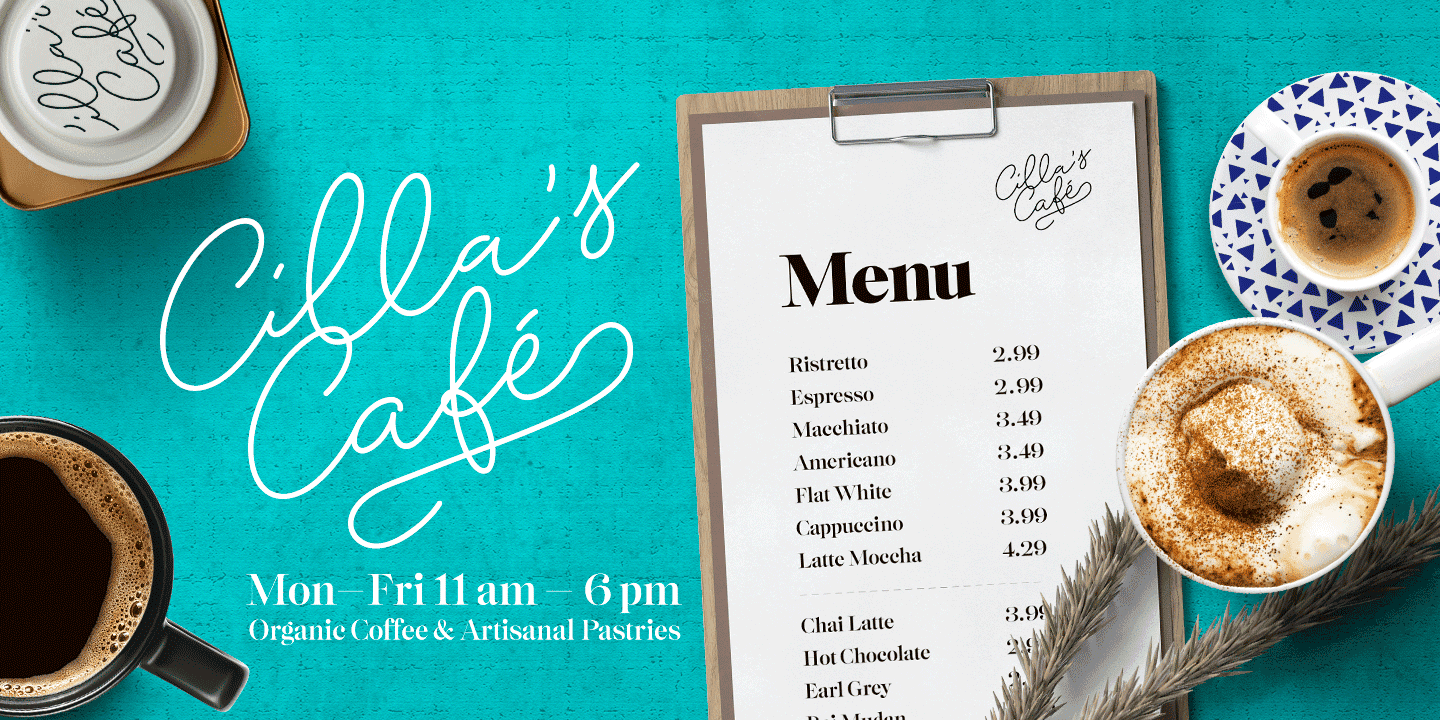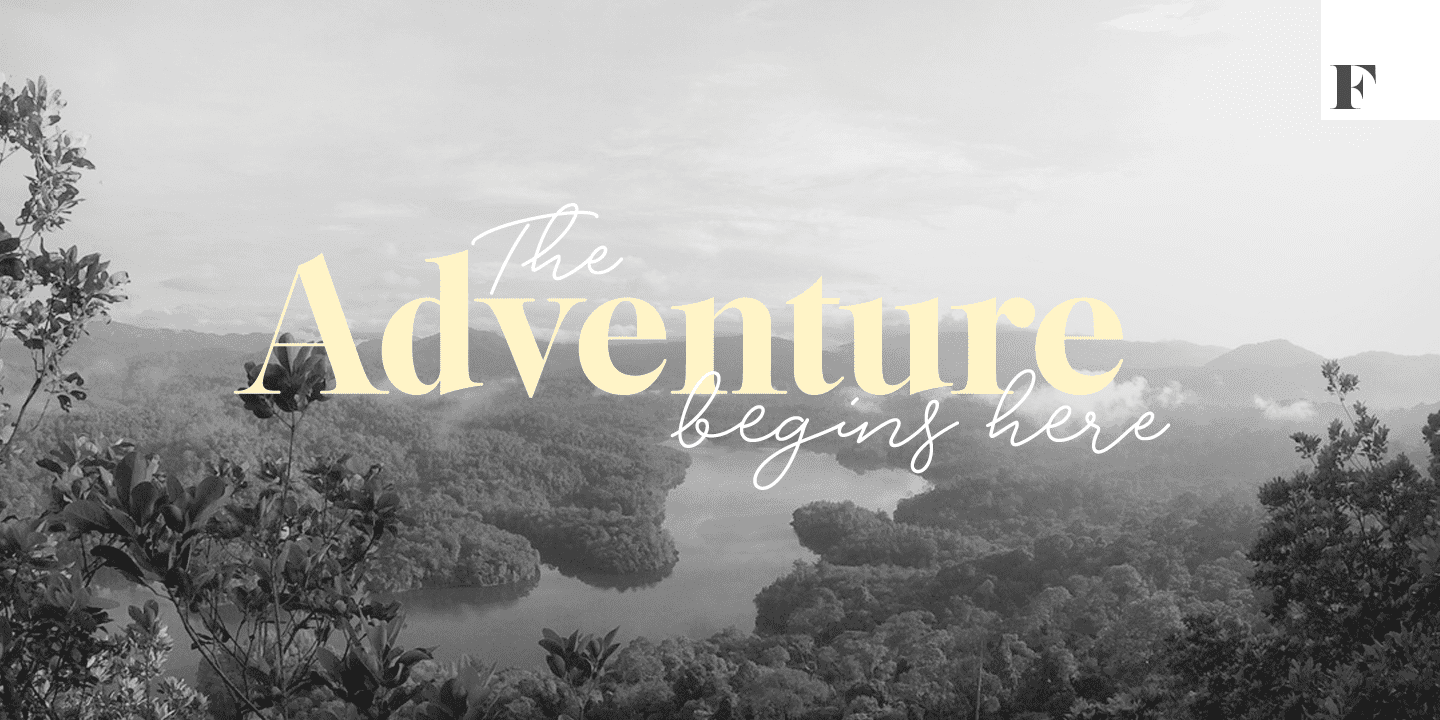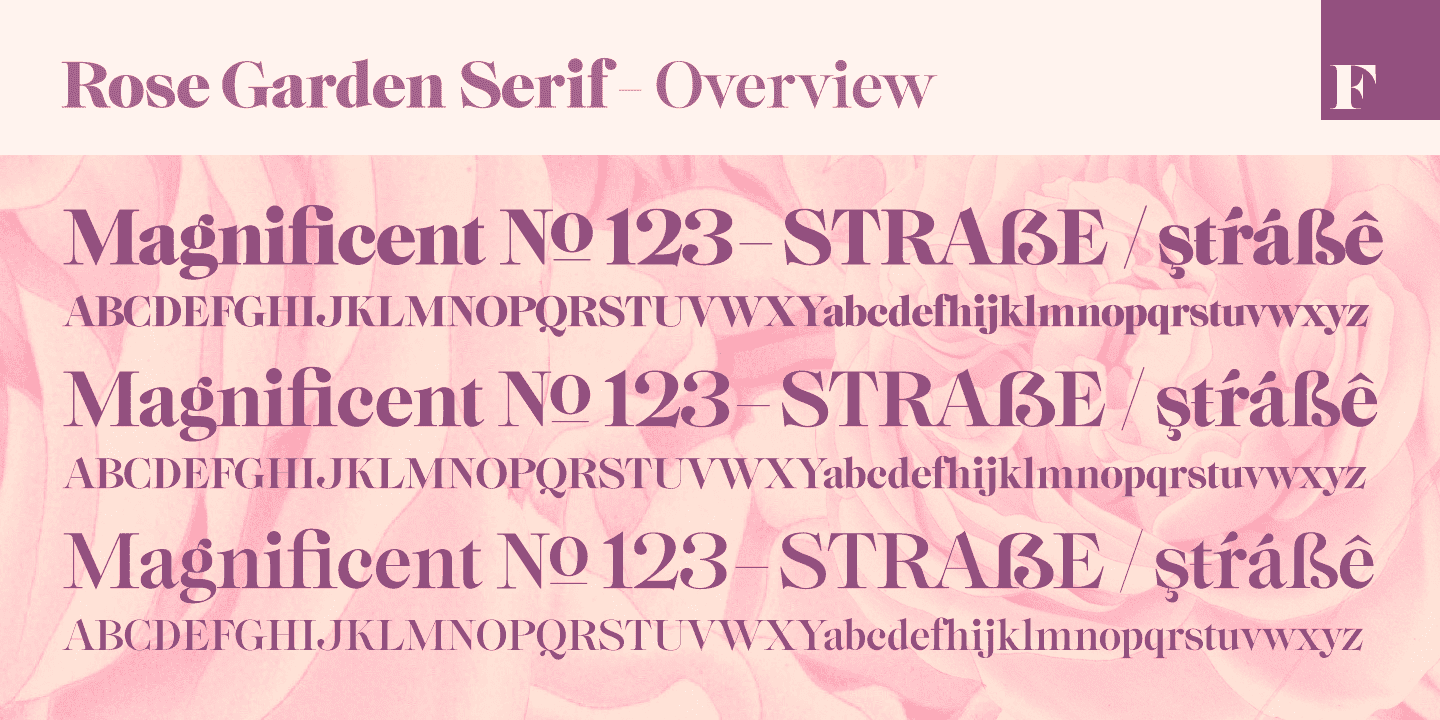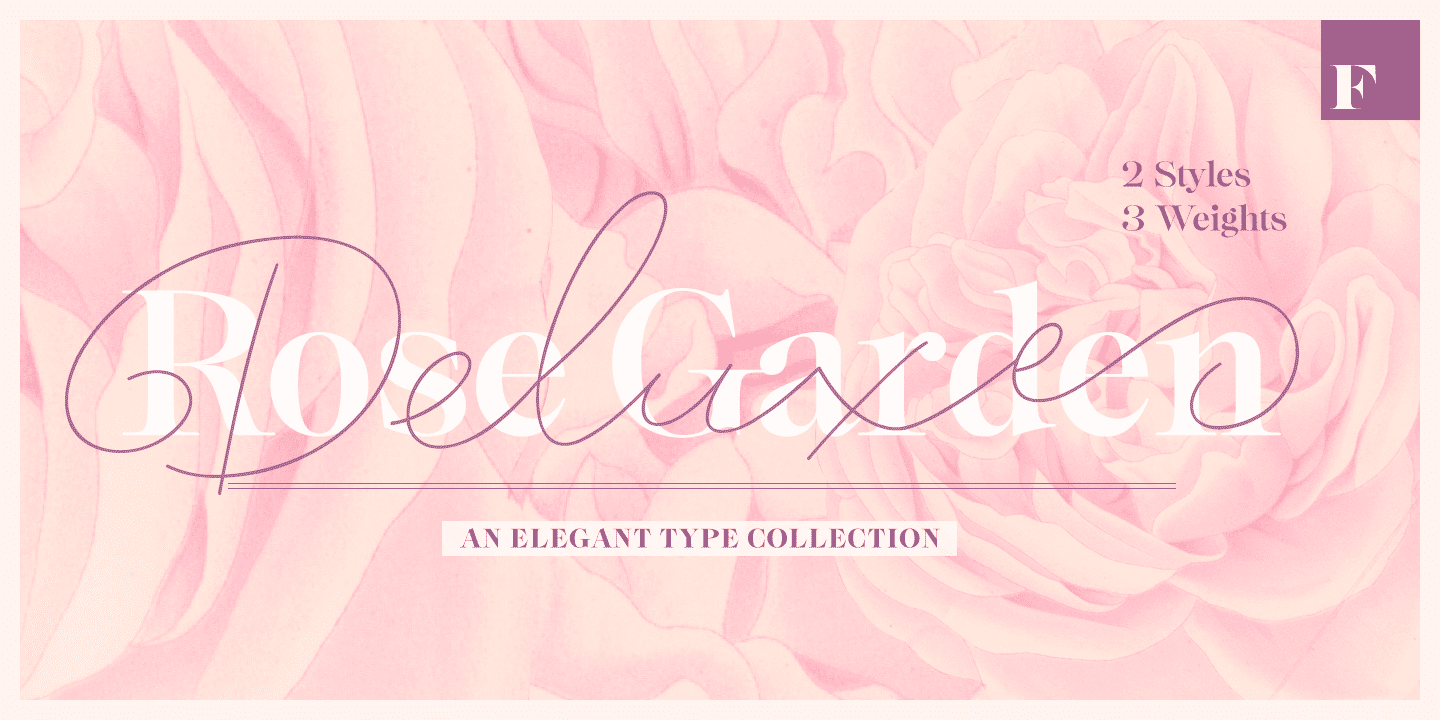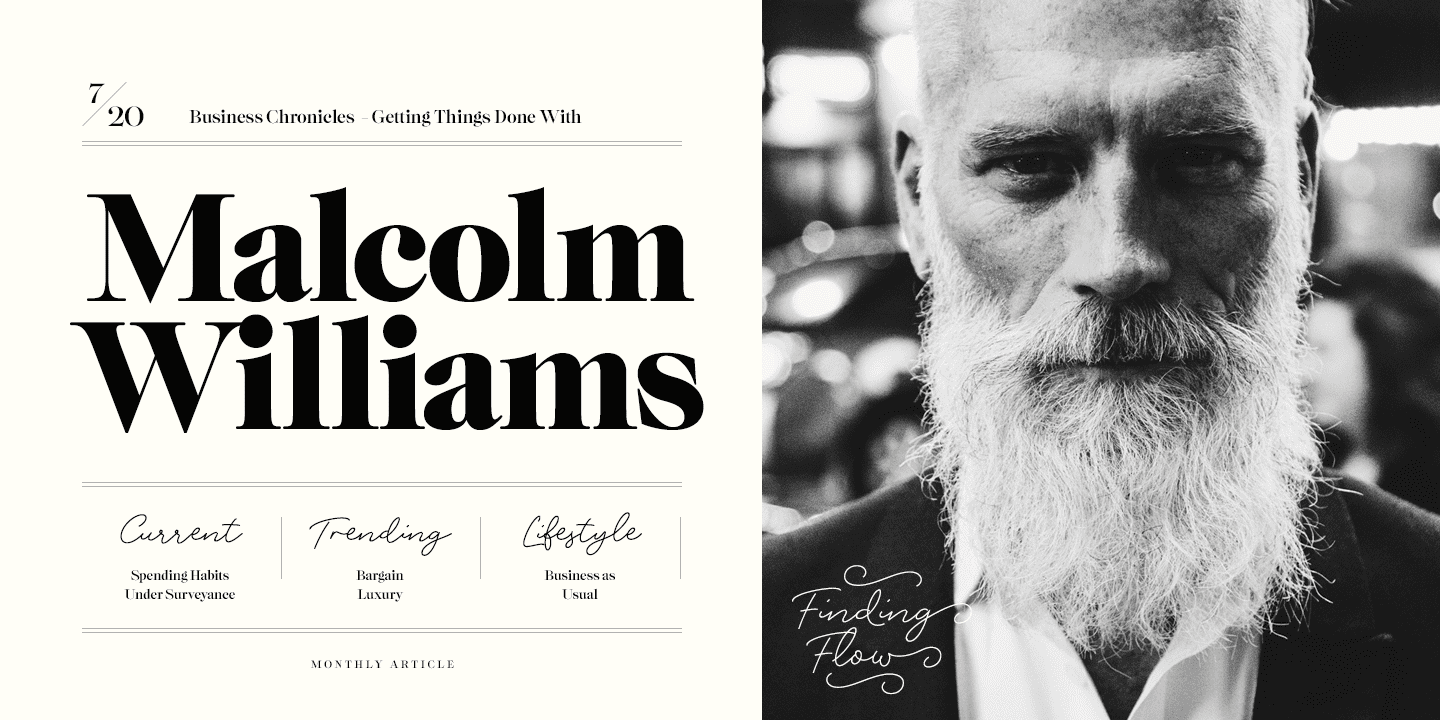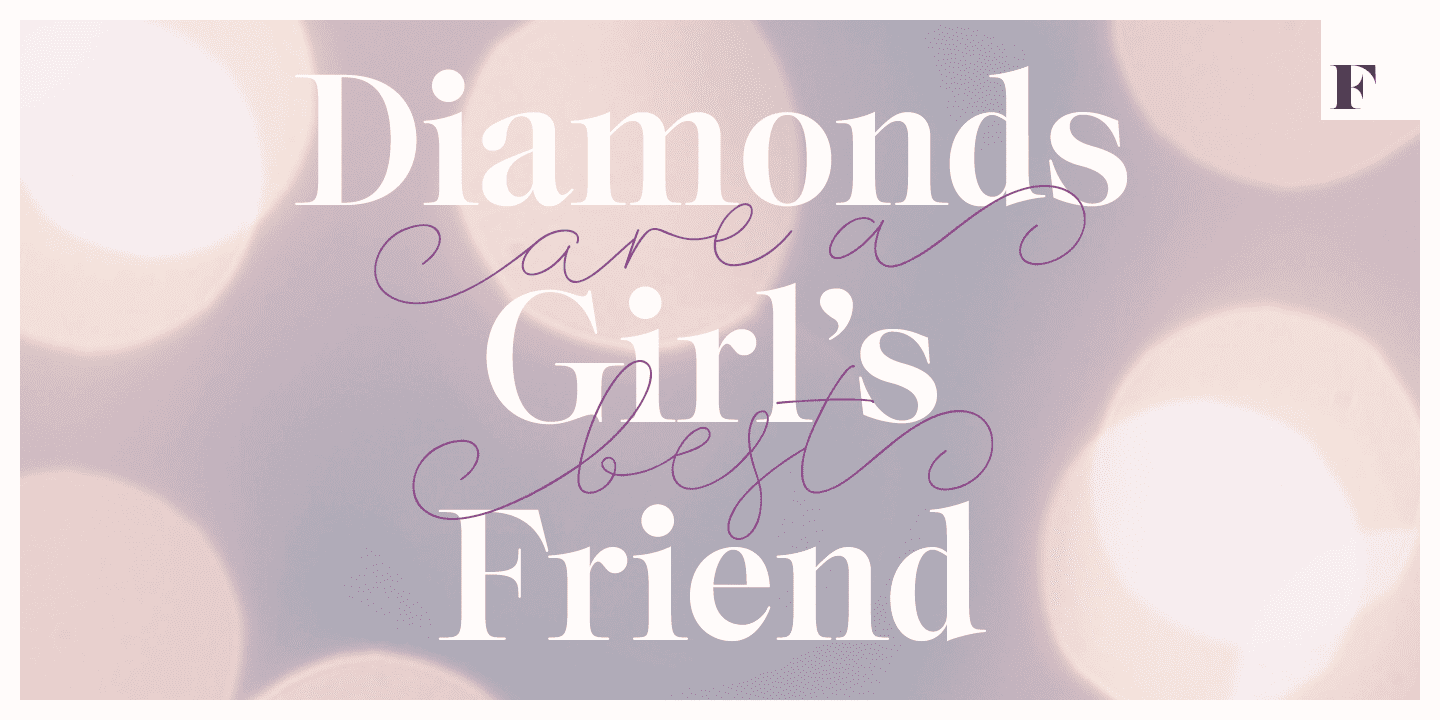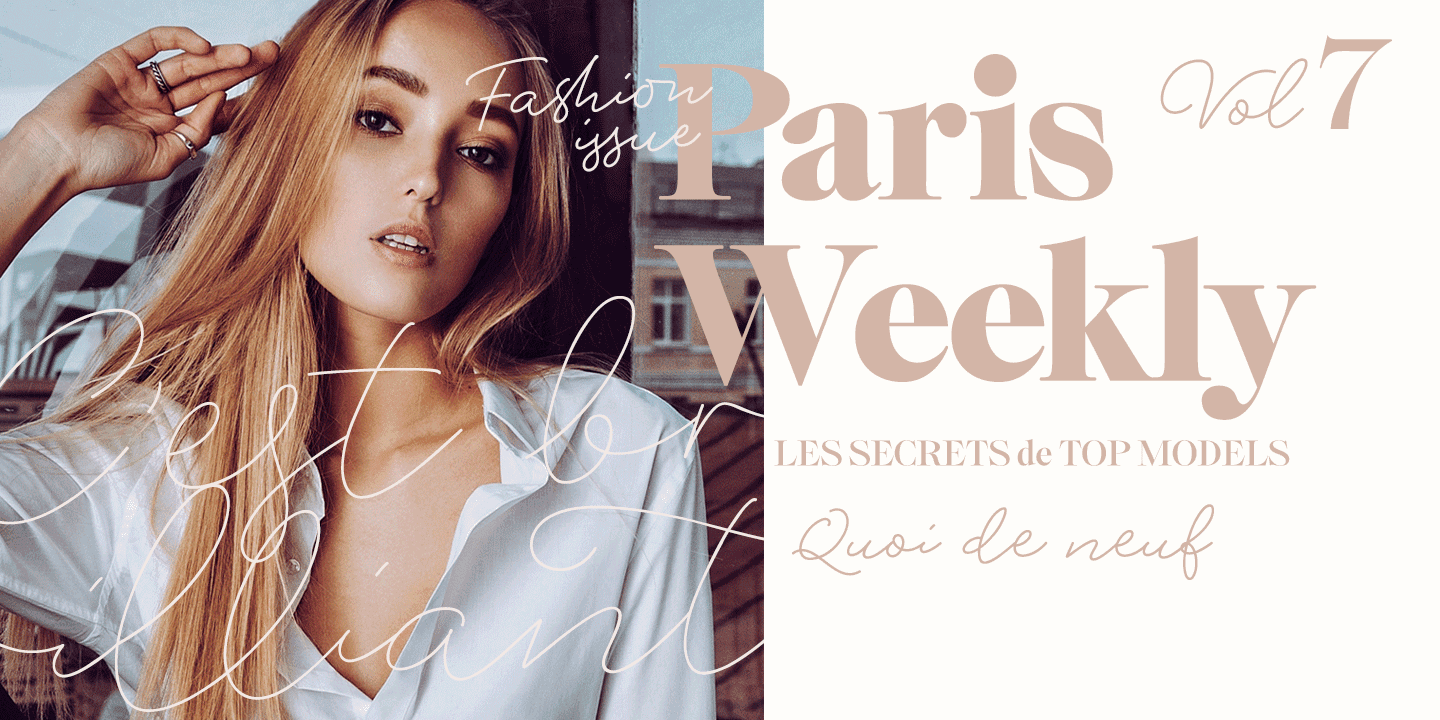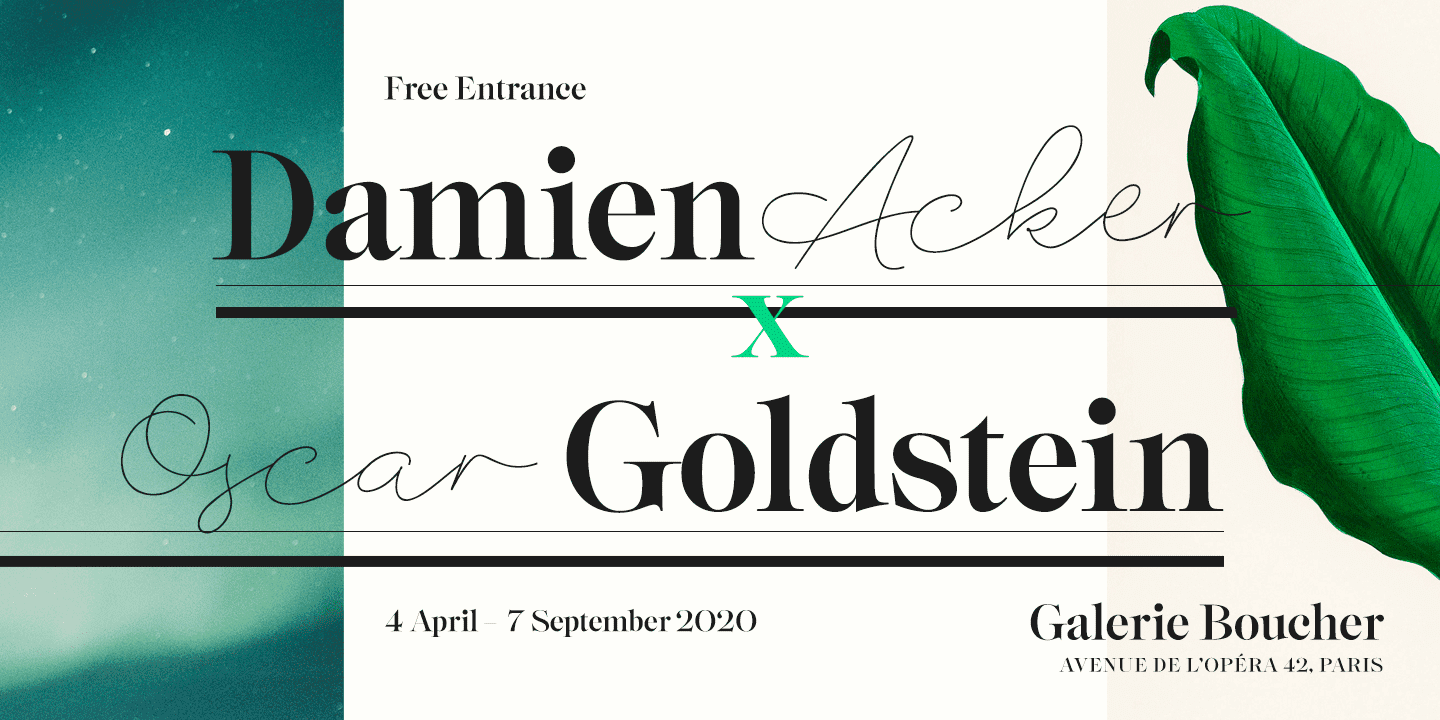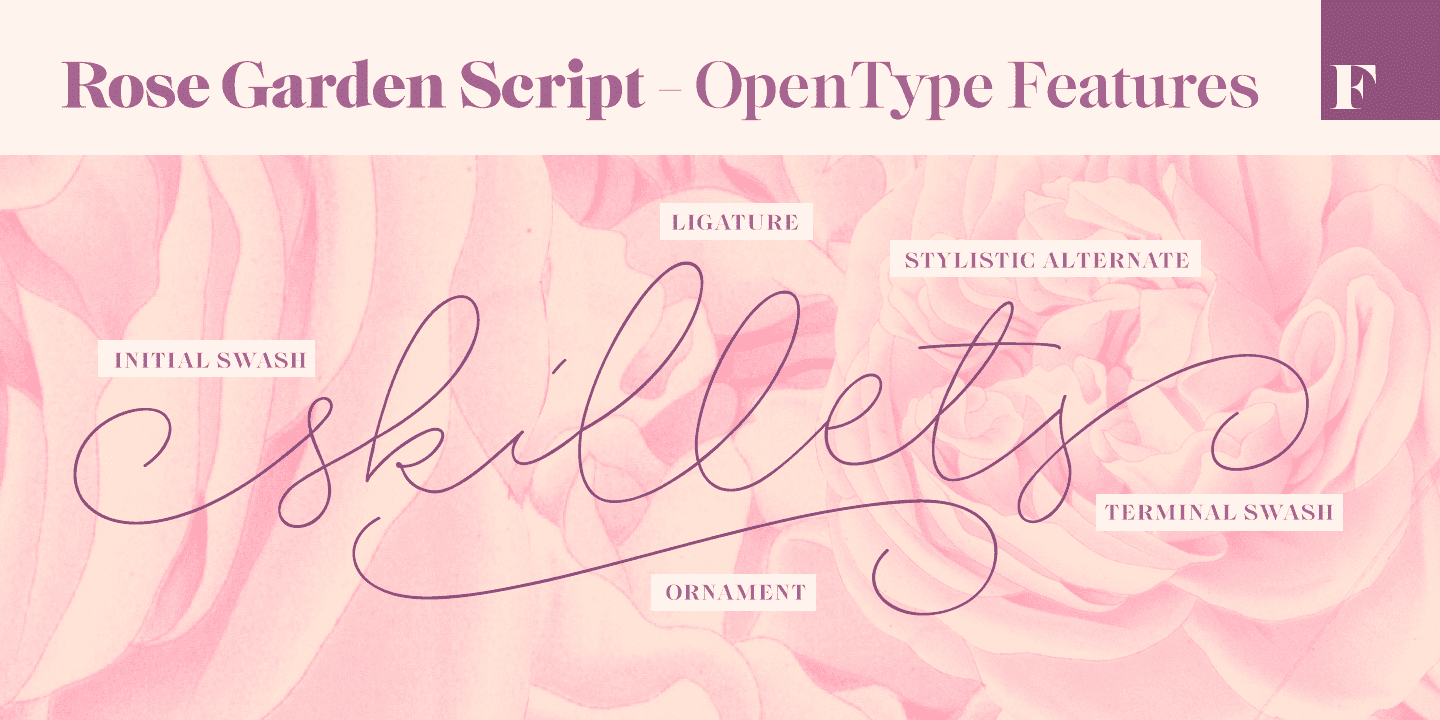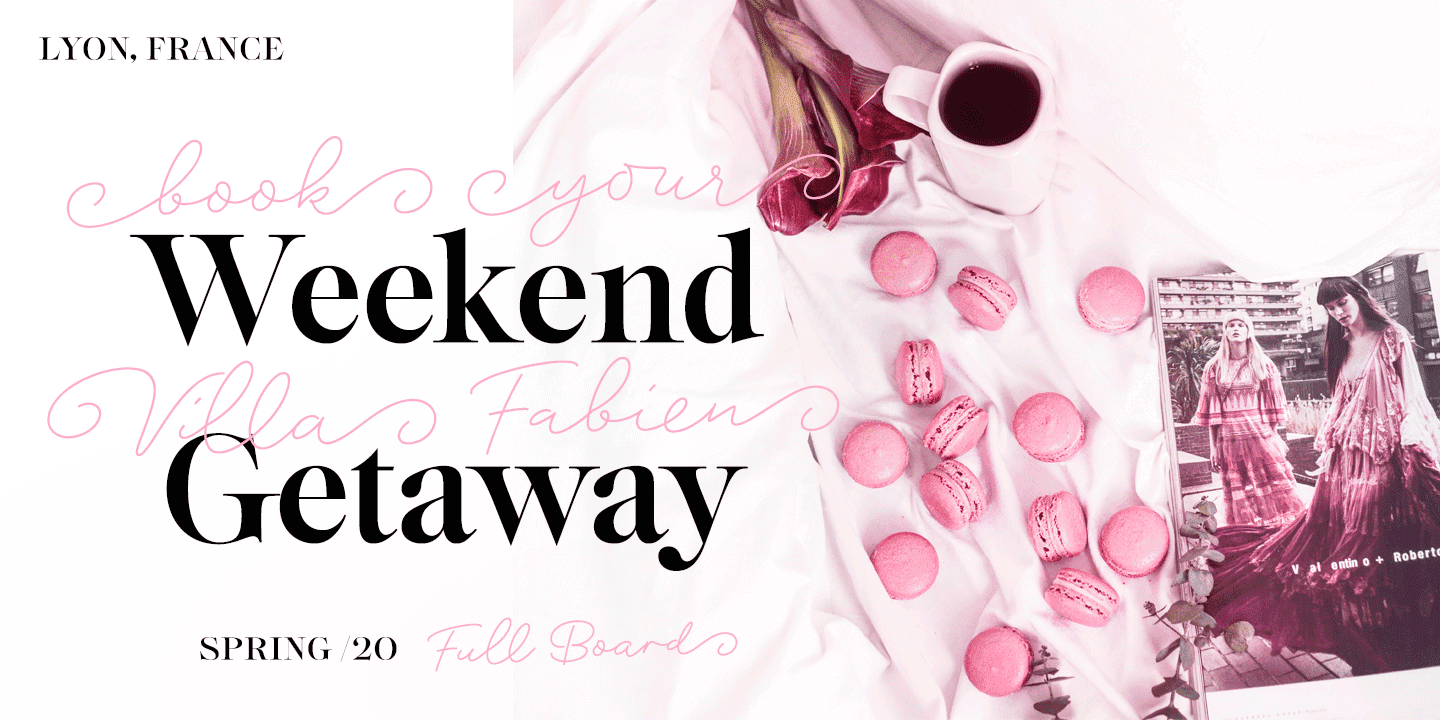
Rose Garden Deluxe (9 fonts)
Rose Garden Serif has an extra high contrast giving it a sophisticated look, suitable for fashion or luxurious high-end products, magazines and anything such.
Rose Garden Pen has no contrast, as if it was written with a steady and precise inking pen. Rose Garden Pen is equipped with plenty of useful OpenType features: it has Contextual Alternates and Standard Ligatures to enliven the flow of “writing” and to keep the connections between letters smooth. In addition it has Stylistic and Swash Alternates for every standard uppercase and lowercase characters, as well as for ampersand and few ligatures. On top of that it has initial and terminal swashes - a feature that is set in Titling Alternates. The feature works following: click it on and write normally. Type a space before a word and after it to get a special swash character in the beginning and in the end of the word. If that isn’t enough seek for even more alternates in the Glyphs Palette. Each weight has over 650 glyphs in total.
Rose Garden Ornaments is an extension to Rose Garden Pen. It’s a set of Ornaments with the same weight and handwriting style as the font. The swooshes can be combined with the font for even more ornamental looks and the swashes set in lowercase letters can be used as additional terminal swashes, combined with any lowercase character.